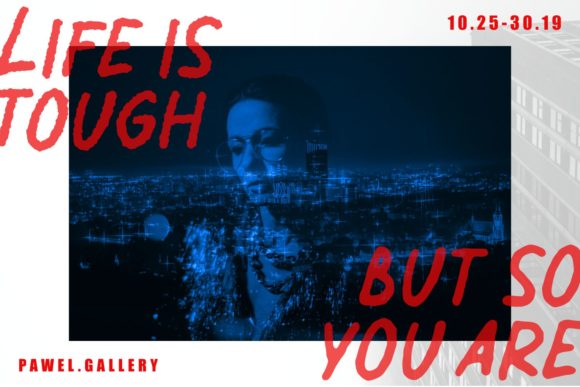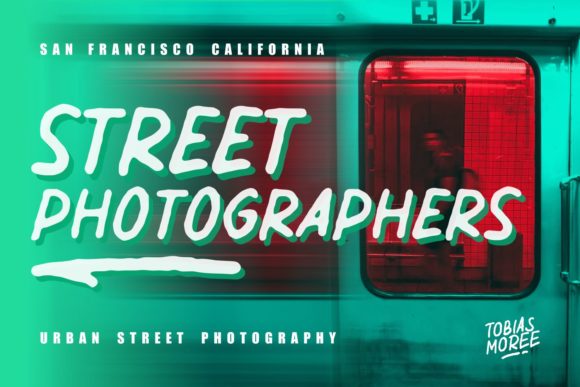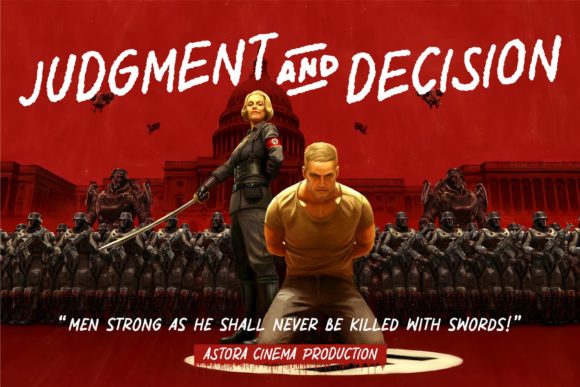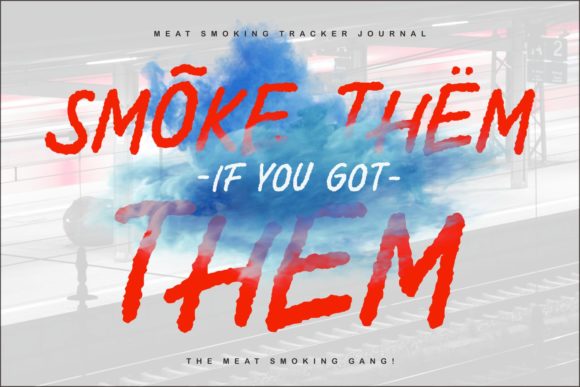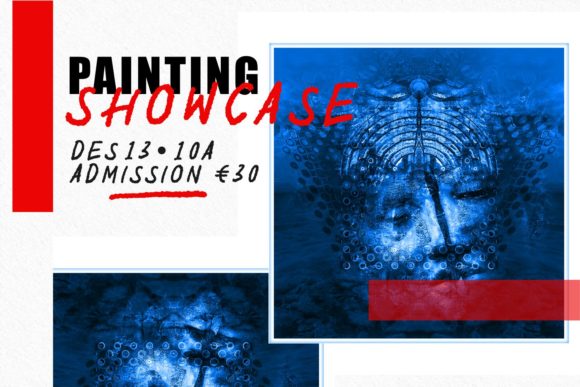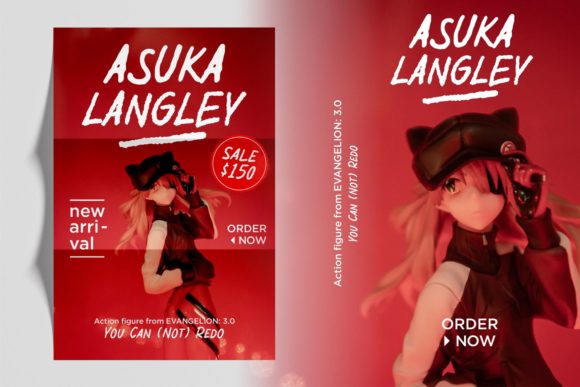
Introducing Democrasweet Font: The Perfect Choice for Designers and Crafters
Are you a designer, crafter, or DIY enthusiast looking for a font that can elevate your creative projects? Look no further than Democrasweet Font! This simple and neat display font is perfect for a variety of applications, from digital designing and presentations to crafting and greeting cards making.
What is Democrasweet Font?
Democrasweet Font is a modern, clean, and elegant display font that is designed to make your creative projects stand out. Its simplicity and neatness make it an excellent choice for a wide range of applications, from professional designs to personal crafting projects.
Key Features of Democrasweet Font
- Simple and Neat Design: Democrasweet Font boasts a simple and neat design that makes it perfect for creating visually appealing projects.
- Display Font: As a display font, Democrasweet is designed to make a statement and grab attention.
- Versatile: This font is versatile and can be used for a variety of applications, including digital designing, presentations, crafting, and greeting cards making.
- Elegant and Modern: Democrasweet Font has an elegant and modern look that will elevate your creative projects and make them look professional.
Why Choose Democrasweet Font?
There are many reasons why Democrasweet Font is an excellent choice for designers and crafters. Here are a few:
- High-Quality Design: This font is designed with high-quality and precision, ensuring that it looks great in any application.
- Unique and Creative: Democrasweet Font is unique and creative, allowing you to add a personal touch to your projects.
Use Cases for Democrasweet Font
Democrasweet Font is perfect for a variety of applications, including:
- Digital Designing: Use Democrasweet Font to create stunning digital designs, such as social media graphics, blog posts, and website headers.
- Presentations: Add a touch of elegance and professionalism to your presentations with Democrasweet Font.
- Crafting: Use Democrasweet Font to create beautiful and unique craft projects, such as handmade cards, scrapbooking, and DIY decorations.
- Greeting Cards Making: Create stunning greeting cards for special occasions, such as birthdays, weddings, and holidays.
Tips for Using Democrasweet Font
Here are a few tips for using Democrasweet Font:
- Experiment with Different Sizes: Try using Democrasweet Font in different sizes to create visual interest and hierarchy.
- Pair with Other Fonts: Pair Democrasweet Font with other fonts to create a unique and creative look.
- Use in Combination with Images: Use Democrasweet Font in combination with images to create stunning visual designs.
In conclusion, Democrasweet Font is a simple and neat display font that is perfect for designers, crafters, and DIY enthusiasts. Its versatility, elegance, and modern design make it an excellent choice for a wide range of applications. With its ease of use, high-quality design, and cost-effectiveness, Democrasweet Font is a must-have for anyone looking to elevate their creative projects.